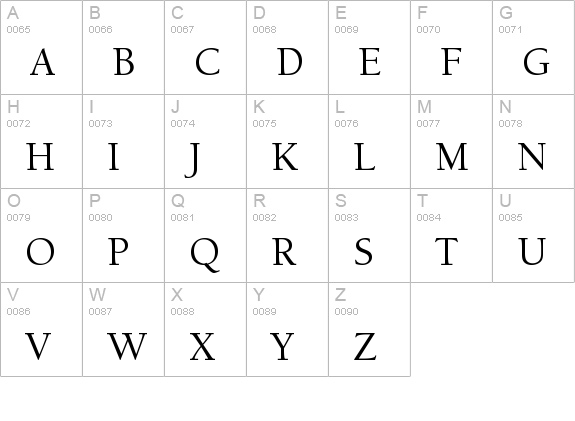
BerkeleyOldStyleEF-Medium is a balanced, medium-weight variant in the BerkeleyOldStyleEF typeface family \xE2\x80\x94 well suited to sub-headlines, navigation, and balanced editorial work.
BerkeleyOldStyleEF-Medium font is a timeless and classic typeface that embodies elegance and sophistication. Its medium weight strikes the perfect balance between readability and style, making it ideal for a wide range of design projects. The traditional characteristics of the Berkeley Old Style font family are enhanced in the Medium weight, creating a sense of authority and professionalism. What makes BerkeleyOldStyleEF-Medium font even more appealing is that it is available for free download at FontsMarket.com. This means that you can easily access this high-quality font and use it in your projects without any cost. Whether you are working on print materials, digital designs, or branding elements, BerkeleyOldStyleEF-Medium font will add a touch of refinement and sophistication to your work. Download this font today and elevate your designs with its classic charm and versatility.